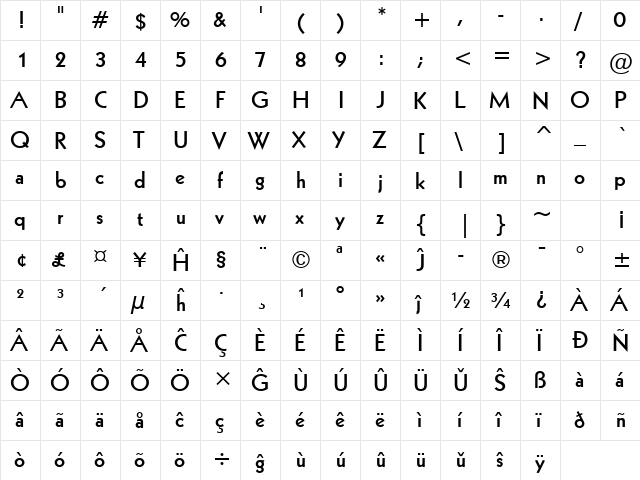
Geometr231 BT Eo Bold
Design Context for Geometr231 BT Eo Typeface
Geometr231 BT Eo takes a measured approach to typography — its balanced proportions and neutral character make it a reliable workhorse for both digital and print work. Its bold stroke weight gives it real presence on the page.